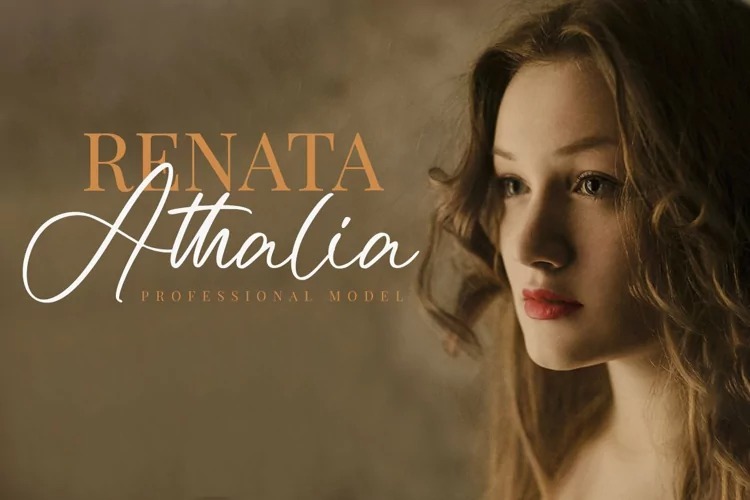
Feminista Handwritten Font
This font is a messily whimsical script ready to brighten up your light-hearted projects. Inspired by texts written loosely by hand, this handwritten font is loaded with careless ligatures. It has a classy, elegant and modern look that can be used for logos, branding, invitations, stationery, wedding designs, social media posts, and much more!